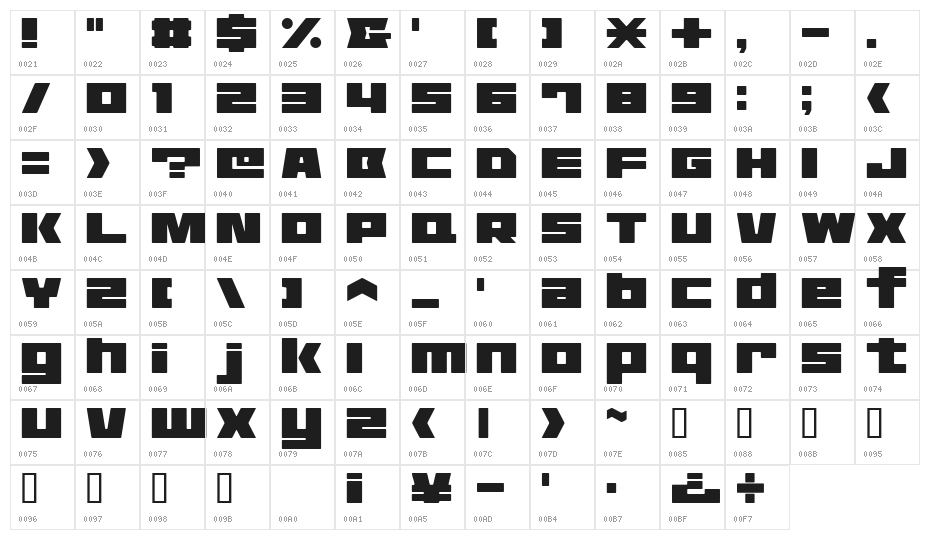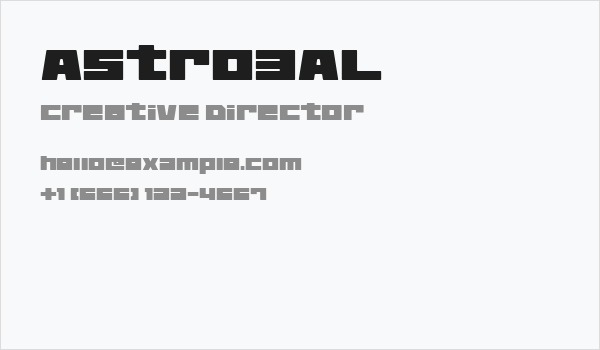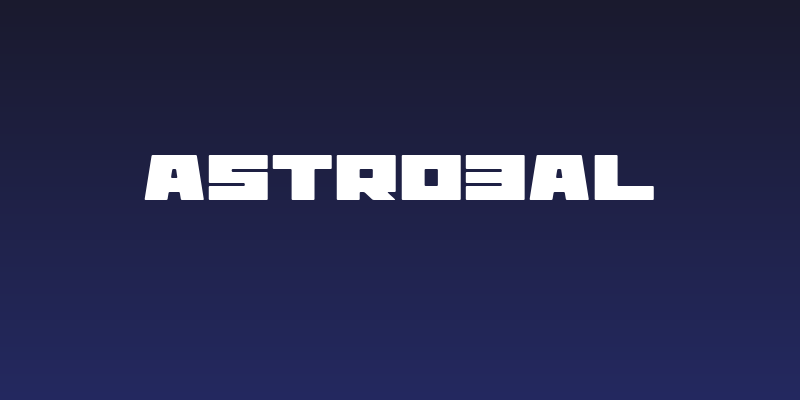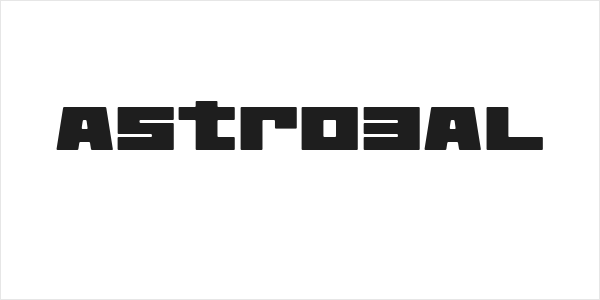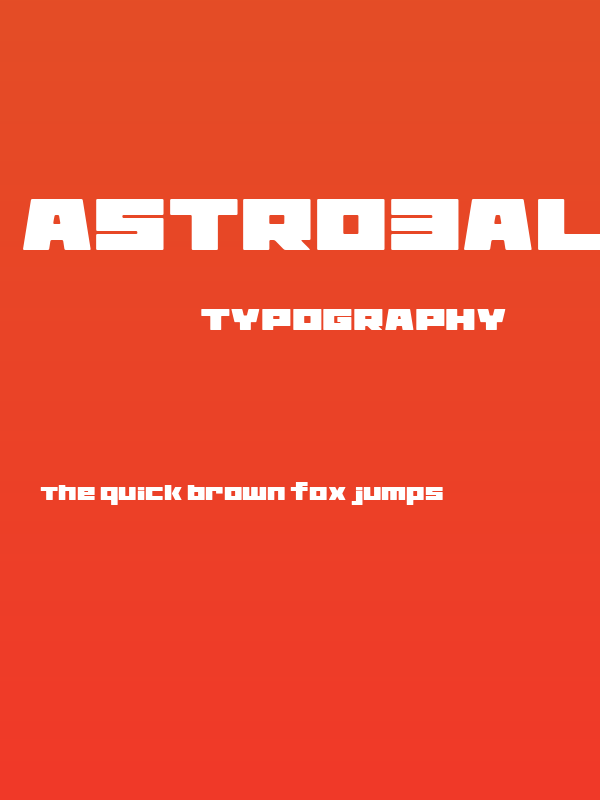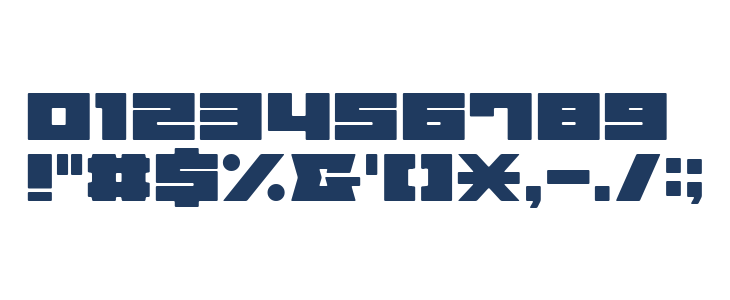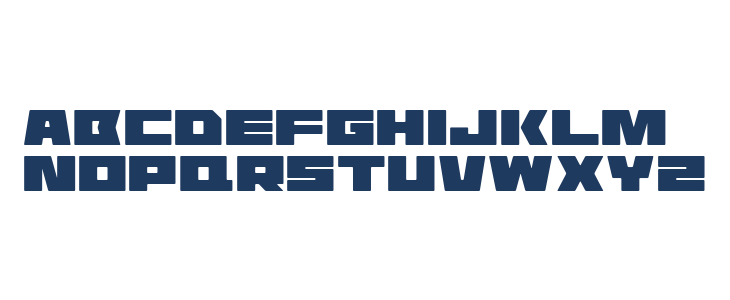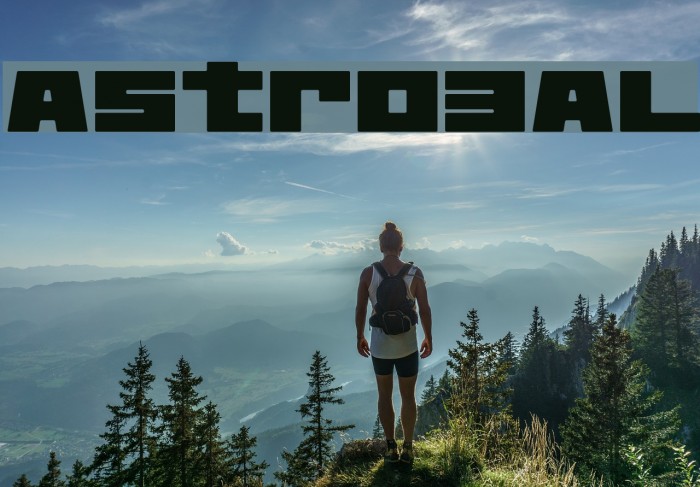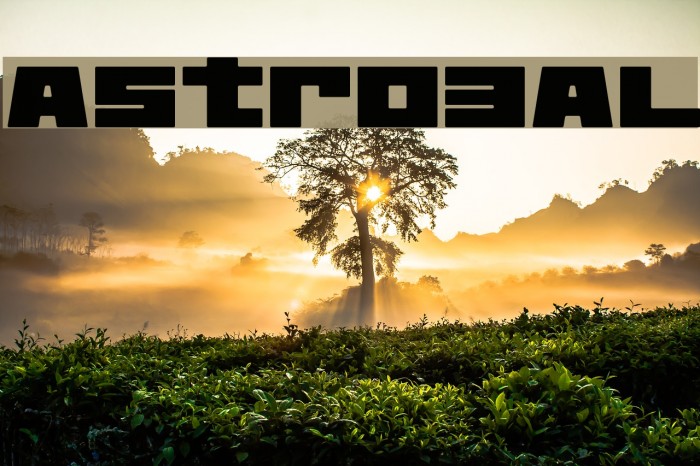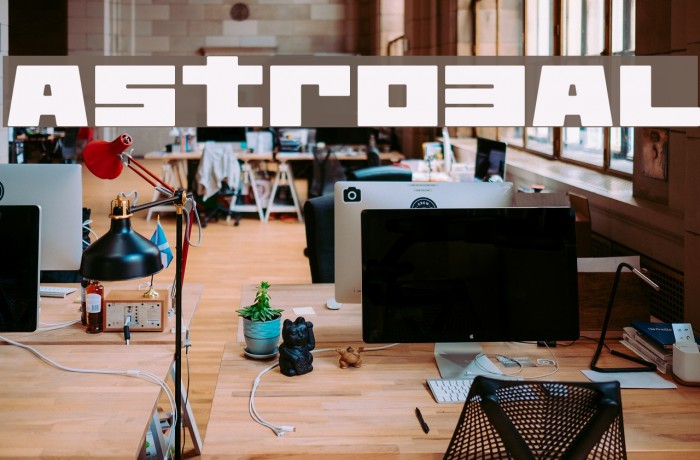
Astro3AL Font
Astro3AL Description
This font features a bold, geometric design with strong, angular lines and a futuristic aesthetic. The characters are blocky and uniform, creating a sense of stability and strength. The uppercase and lowercase letters maintain a consistent width, contributing to a cohesive look. The numerals and special characters follow the same design principles, ensuring uniformity across all glyphs. The font's style is reminiscent of digital or sci-fi themes, making it suitable for projects that require a modern and edgy appearance.
| Proposed Projects | Ideal for technology branding, video game titles, sci-fi book covers, and digital media. |